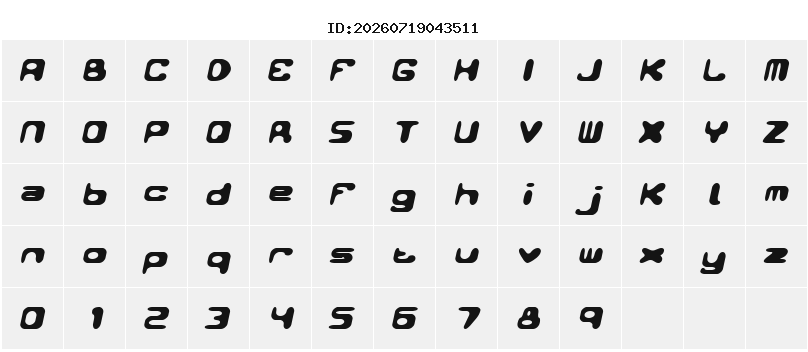
About Conduit 2 Italics BRK.ttf
Conduit 2 Italics BRK.ttf is a modern, elegant sans-serif font designed for ultimate readability and visual harmony. Perfect for branding, headlines, web design, and print materials.